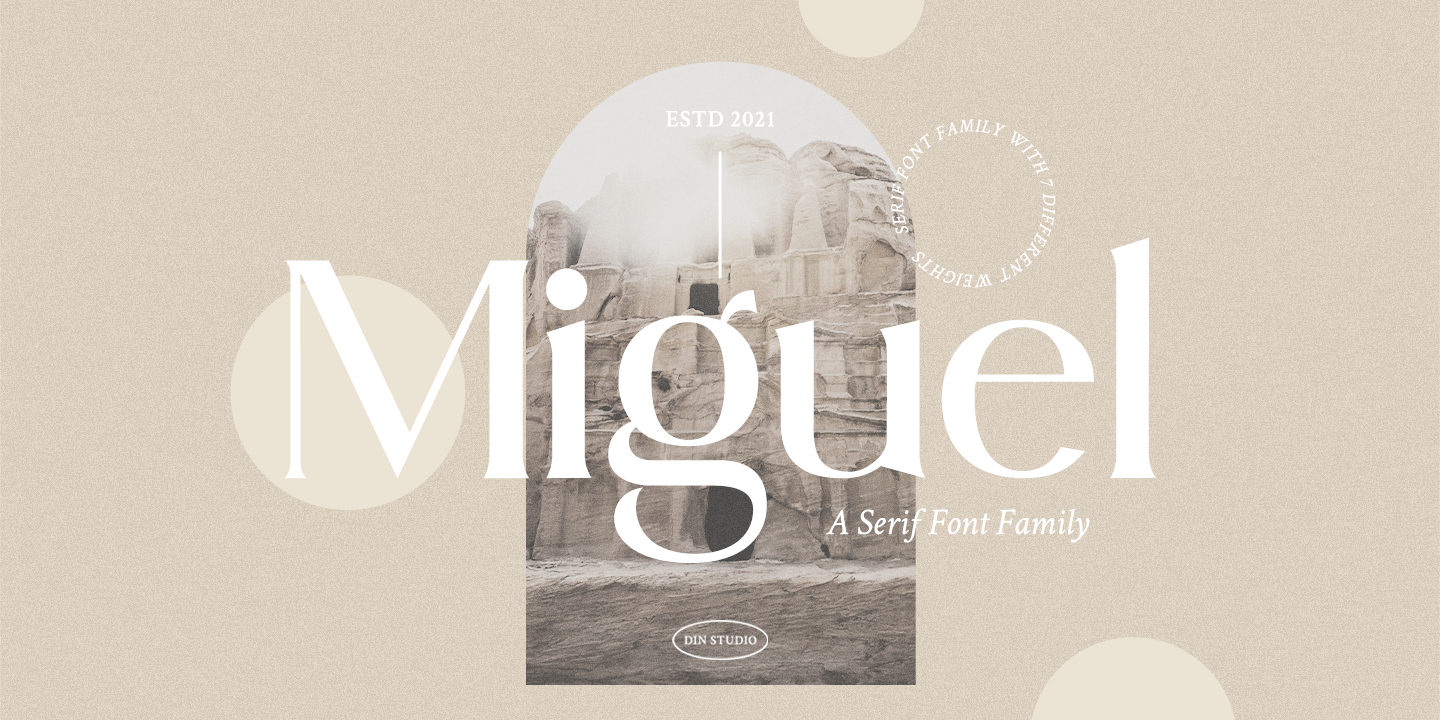
Miguel Font is perfect for Latin restaurant branding, Hispanic cultural events, salsa dance studio signage, Mexican food packaging, Spanish language publications, Latino community centers, mariachi band promotions, and festive celebration materials.
Miguel Font is exciting because it captures the vibrant passion and rich cultural heritage of Latin American traditions through its expressive character design that embodies the warmth of Hispanic hospitality and the spirited energy of Latino celebrations. Its dynamic styling and cultural authenticity make it the perfect choice for brands that want to communicate festivity, tradition, and the joyful spirit of Latin American culture.
The Miguel Font family includes multiple Latin-inspired variations: Miguel Light, Miguel Regular, Miguel Bold, Miguel Condensed, Miguel Script, and Miguel Fiesta, along with decorative flourishes and cultural symbols, providing designers with comprehensive tools for creating authentic Hispanic and Latino-themed brand experiences.
When exploring Latin typography solutions, Miguel Font Free Download emerges as the definitive choice for designers working on Hispanic cultural and Latino community projects that require genuine cultural authenticity and festive appeal. This captivating typeface embodies the essence of Latin American celebration while offering the versatility needed for modern multicultural marketing and community outreach. The font's vibrant character and cultural resonance create immediate connections with audiences who appreciate Hispanic heritage and Latino traditions.
Creative professionals consistently choose Miguel Font for projects requiring authentic Latino authenticity and powerful cultural appeal. Its carefully crafted letterforms feature Hispanic influences that work exceptionally well in both large-scale festival signage and intimate family restaurant menus. The font's ability to convey cultural pride and festive spirit while maintaining strong brand recognition makes it invaluable for comprehensive identity systems in the hospitality, entertainment, and authentic Latino product sectors.
Whether you're developing Hispanic restaurant identities, creating Latino cultural festival materials, or designing community celebration promotions, Miguel Font delivers the authentic Latin character and festive appeal that resonates with audiences who celebrate Hispanic heritage and Latino traditions. Its cultural significance and spirited design ensure your projects honor Latino culture while maintaining contemporary professional standards that attract modern multicultural communities and cultural enthusiasts.